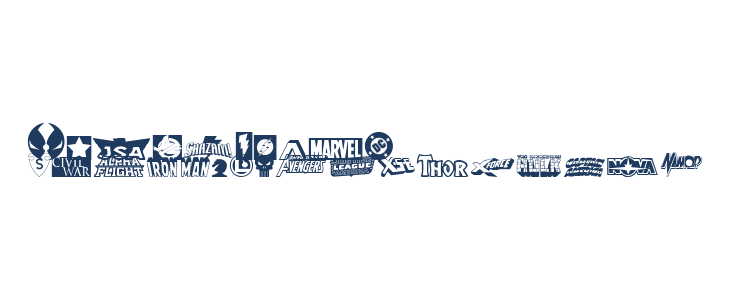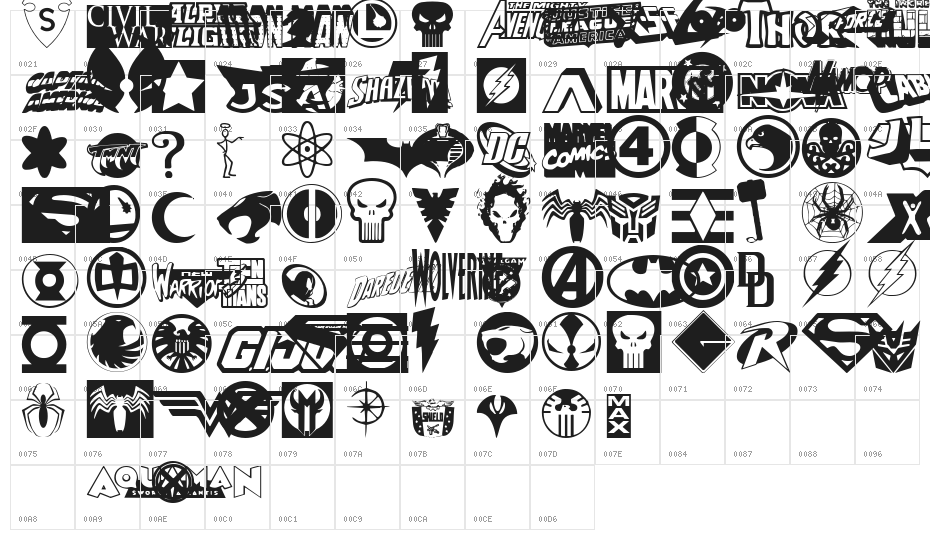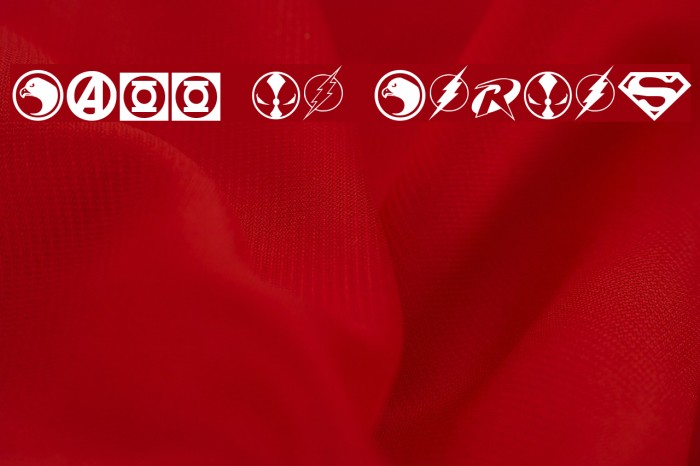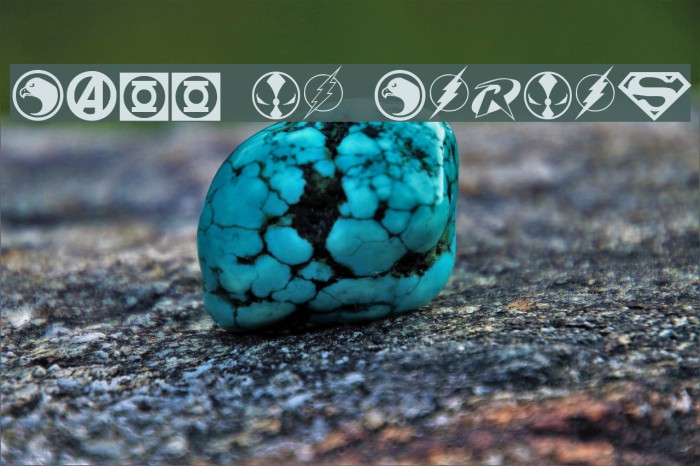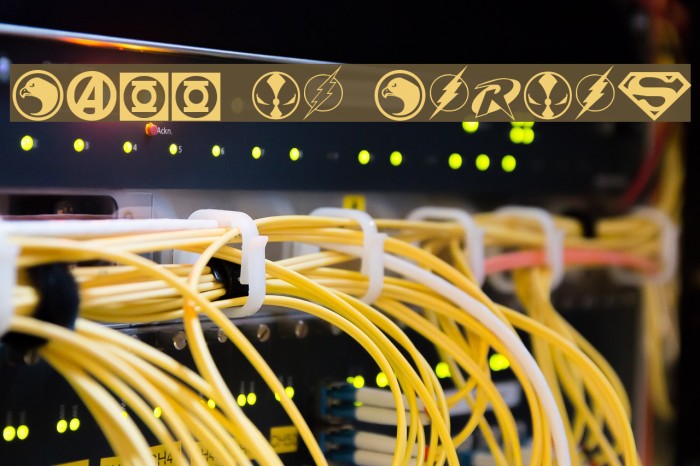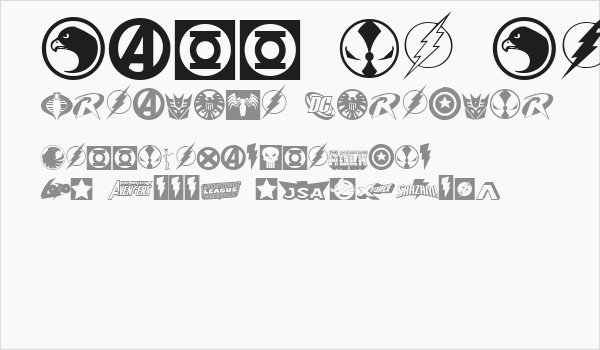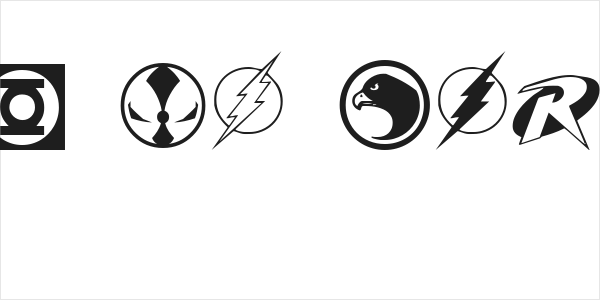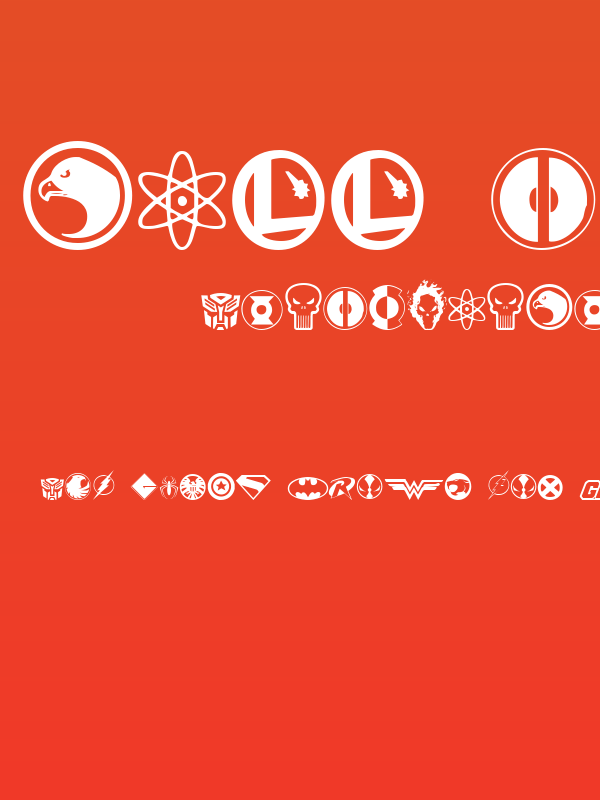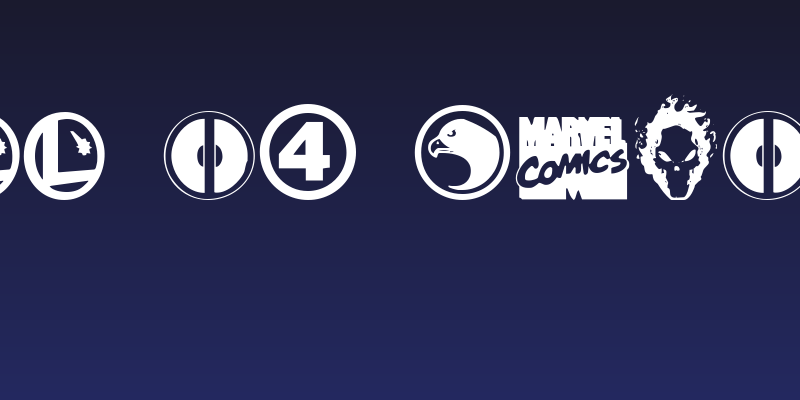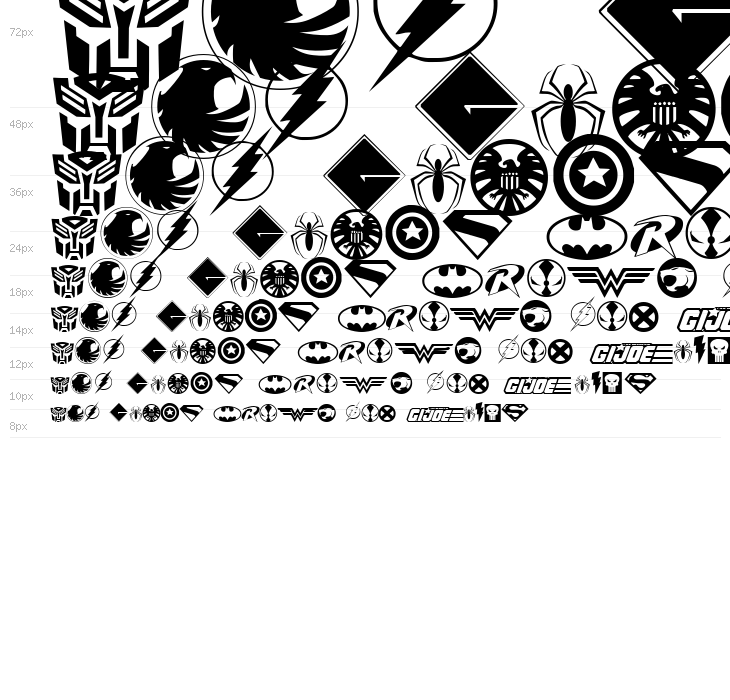
Hall of Heroes Font
Hall of Heroes Description
A decorative display font composed entirely of iconic superhero and comic book logos, each glyph representing a different character or franchise symbol. The style is bold, high-contrast, and highly graphic, with each character rendered as a solid black-and-white emblem. The font is not intended for traditional text but rather for thematic or illustrative use.
| Overall Style | Decorative, Pop Culture, Graphic |
| Use Case | Logos, Posters, Themed Graphics, Event Titles |
| Proposed Projects | Comic book covers, fan art, themed party invitations, posters, pop culture merchandise, event branding. |